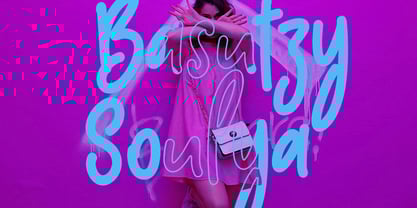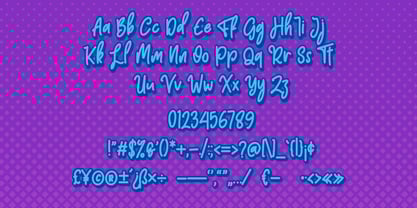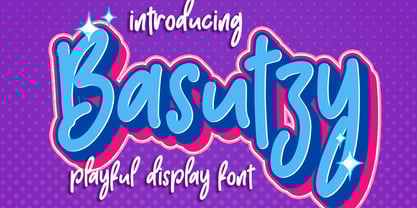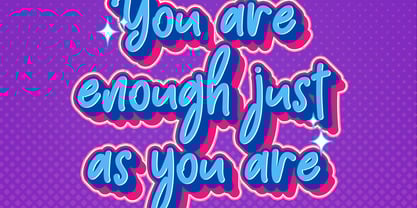
Basutzy
by Skiiller Studio
The Basutzy Font Family was designed by Irfan Mahmudin and published by Skiiller Studio. Basutzy contains 1 styles.
Basutzy is a playful display font with bold, rounded letterforms and a cheerful personality. Designed to stand out, this font features thick strokes, smooth curves, and a fun, energetic style that instantly grabs attention. Perfect for kids designs, posters, branding, logos, packaging, social media graphics, headlines, stickers, and creative projects that need a lively and friendly look. Basutzy works great for both digital and print use, adding charm and joy to any visual design.
Designers: Irfan Mahmudin
Publisher: Skiiller Studio
Foundry: Skiiller Studio
Design Owner: Skiiller Studio
Basutzy